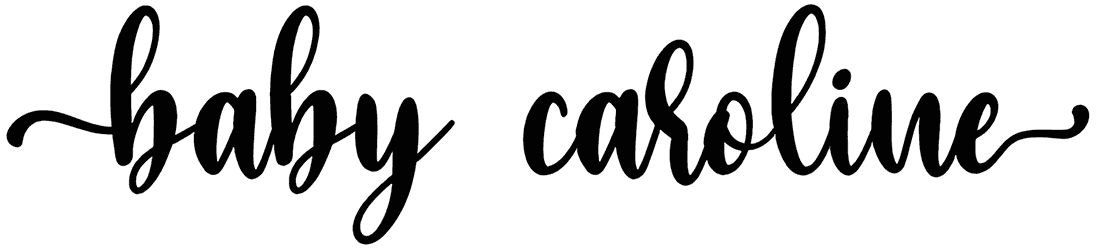
Baby Caroline Script Font
Baby Caroline Script is written in a rhythmic and yet elegant way and creates the atmosphere of a humane and valuable design. This handwritten masterpiece can create a natural feeling throughout the writing and give it originality.
You can use this romantic font in all projects that need to create a stable and emotional bond with the audience. That’s why we recommend it for packaging labels, greeting cards, and stationery design.